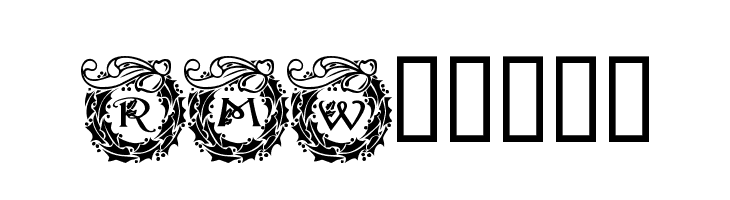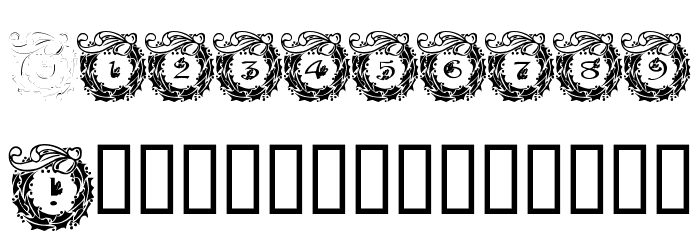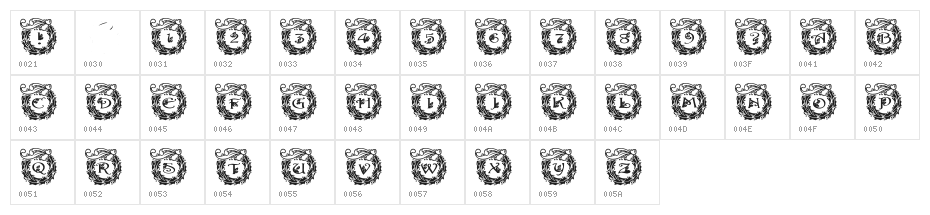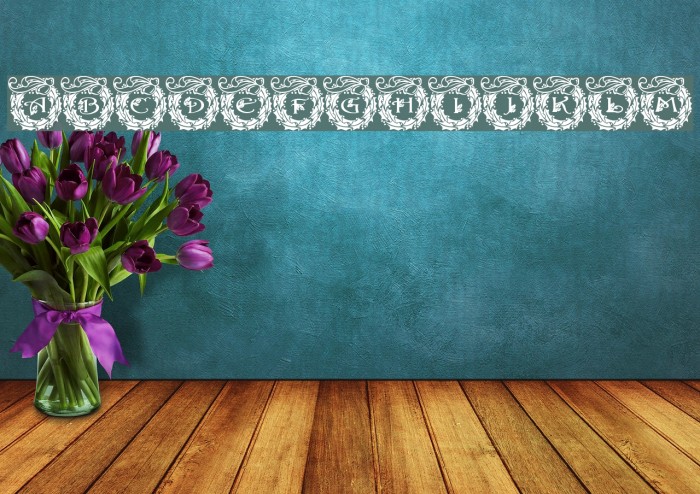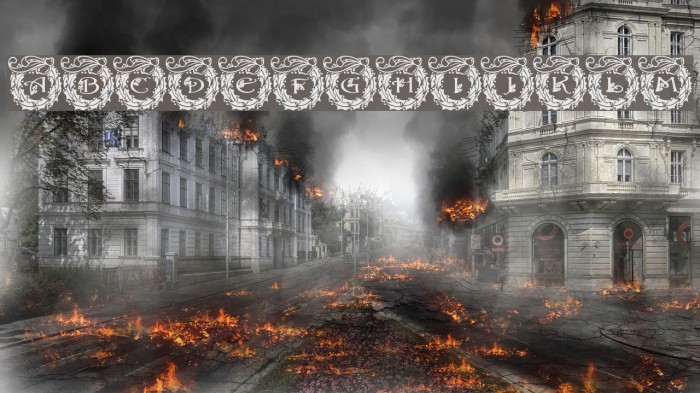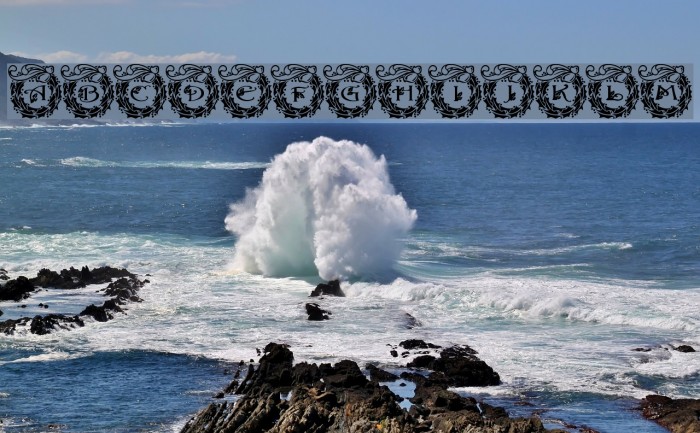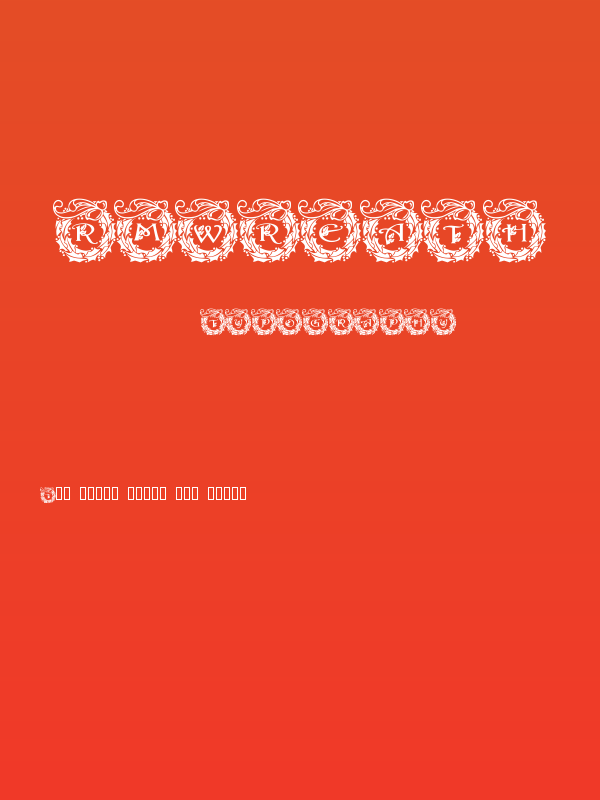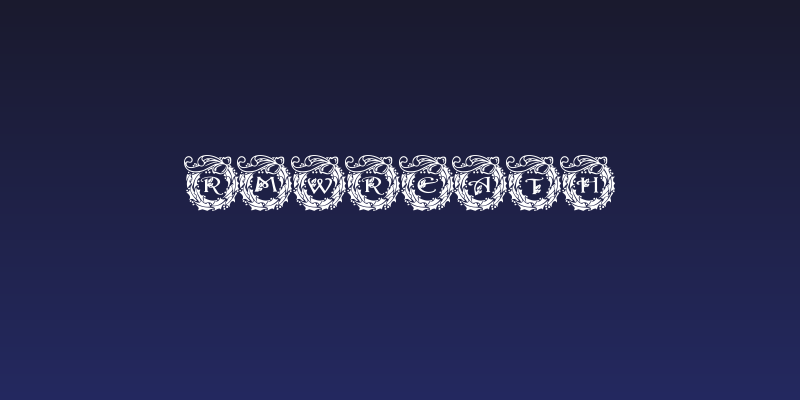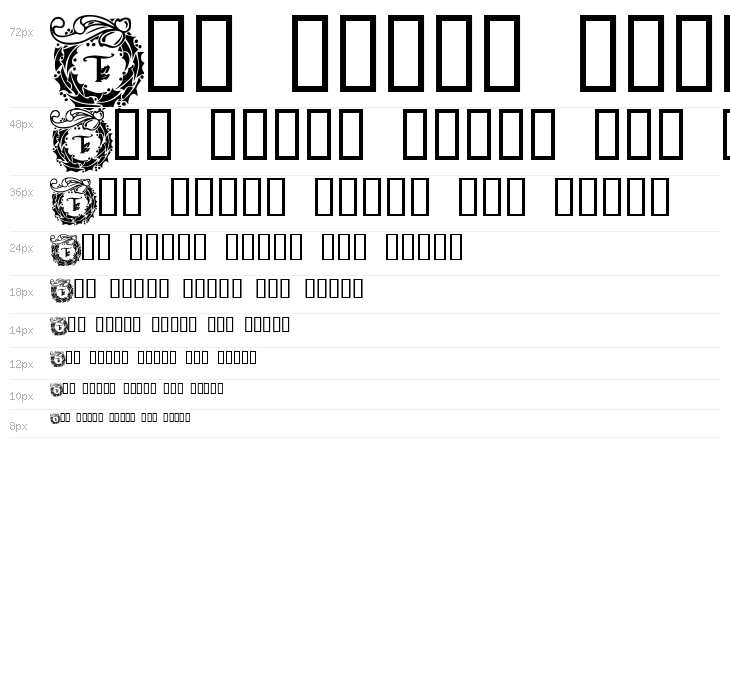
RMWreath Font
RMWreath Description
This decorative font features ornate wreath designs encircling each character, creating an elegant and intricate appearance. The uppercase letters are prominently displayed within these wreaths, giving a sense of grandeur and sophistication. The numbers are similarly styled, maintaining the cohesive decorative theme. The font is ideal for projects that require a touch of elegance and formality, such as invitations, certificates, or branding materials. The intricate details of the wreaths add a vintage charm, making it suitable for designs that aim to evoke a sense of tradition and refinement.
| Proposed Projects | Ideal for wedding invitations, formal event programs, luxury branding, and vintage-themed designs. |